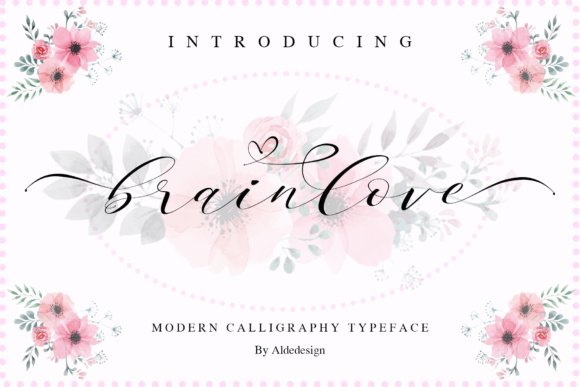
The Perfect Touch of Elegance: Brainlove Script Font
Do you remember that moment when you stumbled upon the perfect font for your design project? The one that just made everything fall into place? For many designers, that moment comes when they discover the Brainlove Script Font. This beautiful, elegant script font is a game-changer for any creative project that requires a touch of sophistication and style.
With its varying baseline and smooth lines, Brainlove Script Font is perfect for headings, signatures, logos, and even wedding invitations. Whether you’re designing a t-shirt, letterhead, or signage, this font adds a classic and elegant touch that’s sure to impress. As a designer, you’ll appreciate the versatility and value that Brainlove Script Font brings to your projects.
Brainlove Script Font Key Features
- Font Family: Brainlove Script Font
- Unique Characteristics: Hand-drawn script font with a personal and elegant feel, perfect for creative projects and titles
Review of Brainlove Script Font
Overall, I’m impressed with the Brainlove Script Font. It’s a beautiful, elegant script font that can add a touch of sophistication to any design project. ✨ The font’s flowing connections and subtle flourishes make it perfect for creative projects like invitations, quotes, and even logos.
Here are some of the things that work well in this font:
- ✨ Elegant and sophisticated look: The Brainlove Script Font is perfect for designers who want to add a touch of luxury to their projects.
- ✨ Versatile: This font can be used for a wide range of projects, from creative projects to business cards and even book covers.
- ✨ High-quality vector format: The font is available in high-quality vector format, making it easy to resize and manipulate without losing any quality.
- ⚠️ Limited language support: The Brainlove Script Font only supports a limited number of languages, which may be a problem for designers who need to create content in multiple languages.
- ⚠️ May not be suitable for large blocks of text: The font is best used for short paragraphs or titles, as it can be difficult to read when used for large blocks of text.
Overall, I would highly recommend the Brainlove Script Font to designers who are looking for a elegant and sophisticated script font. With its high-quality vector format and versatile design, it’s a great addition to any design library.
Alternatives to Brainlove Script Font
Great Vibes is a modern calligraphy font with a friendly and approachable feel. It’s perfect for designs that require a touch of elegance and sophistication. Great Vibes is a great alternative to Brainlove Script Font for designers who want a more contemporary look.
Comparison: Great Vibes has a more streamlined and polished feel compared to Brainlove Script Font, which has a more rustic and handwritten look.
Alex Brush is a elegant and refined script font with a touch of whimsy. It’s ideal for designs that require a sense of luxury and sophistication. Alex Brush is a great alternative to Brainlove Script Font for designers who want a more refined and polished look.
Comparison: Alex Brush has a more refined and polished feel compared to Brainlove Script Font, which has a more casual and handwritten look.
Carolyna Pro is a modern script font with a bold and playful feel. It’s perfect for designs that require a touch of drama and flair. Carolyna Pro is a great alternative to Brainlove Script Font for designers who want a more modern and edgy look.